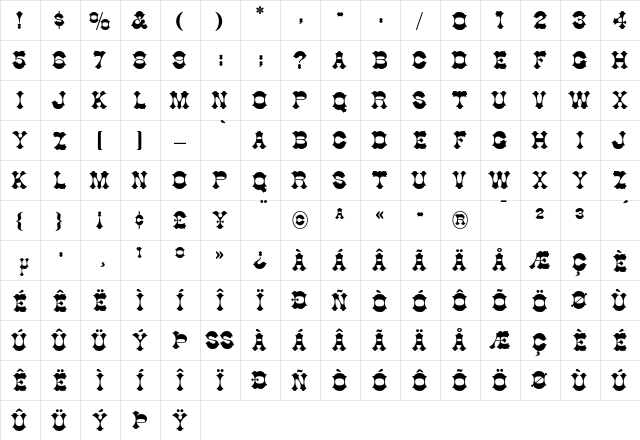
Cottonwood Medium
Design Context for Cottonwood Typeface
Cottonwood echoes the hand-painted signage and woodblock typography of the American frontier, with a warm, rugged personality.
Perfect for barbecue restaurants, country music branding, vintage poster design, and rustic packaging.
Font Pairing: Combine Cottonwood with a simple slab or neutral sans — period-accurate companions reinforce the vintage feel without competing for attention.
Pro Tip: Pair Cottonwood with aged textures or distressed backgrounds to amplify its vintage personality.